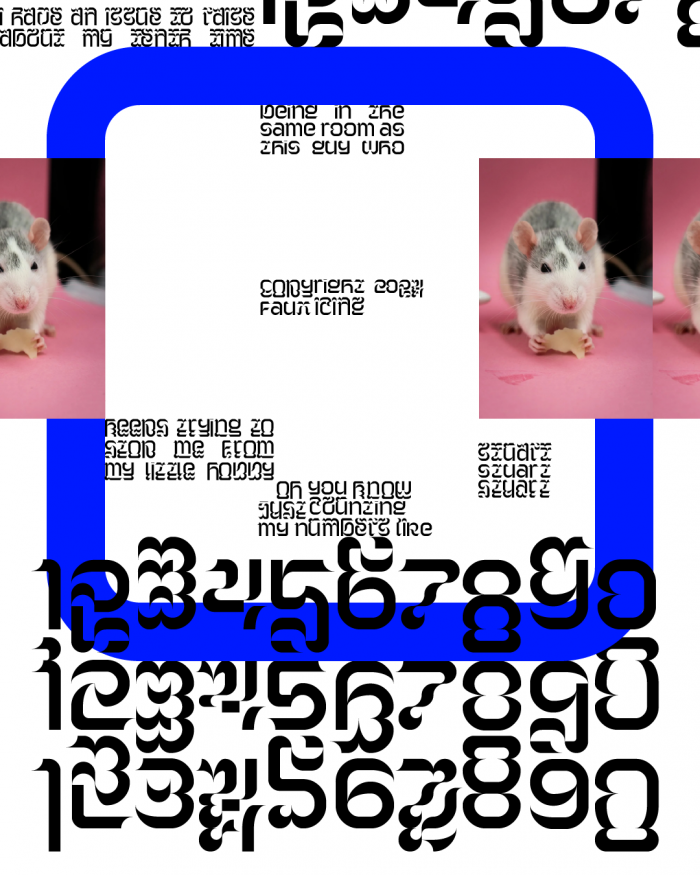
• Part of the Stu font family, Stu Mid keeps all lowercases tucked within the x-height space. The character glyphs can be used interchangeably between the various Stu styles to achieve a more "bouncy" typesetting effect.
Stu pays homage to oldstyle numerals, where type designers vary the heights of numbers to resemble a line of running lowercase text. It seeks to address the question: "What if every lowercase alphabet also had varying heights?" The result is a font family with full-fledged ascenders ('Hi'), strictly x-heights ('Mid'), and only descenders ('Lo').
It would be great to have the nice gif (or jpg) of just the mutation of the three fonts without that blue line and other background stuff that makes it hard to see properly, IMHO. Great work anyway.
@elmoyenqiue: Thanks for the kind words! I ran into some weird morhping problem when I solely used text for the sample. Perhaps I'll try again another time.
The software automatically interpolating medial frames can often produce funky results…
BWM what do you mean by medial frames?
@rhwsbbdbwi Frames placed in between the original frames, especially when put into a higher framerate